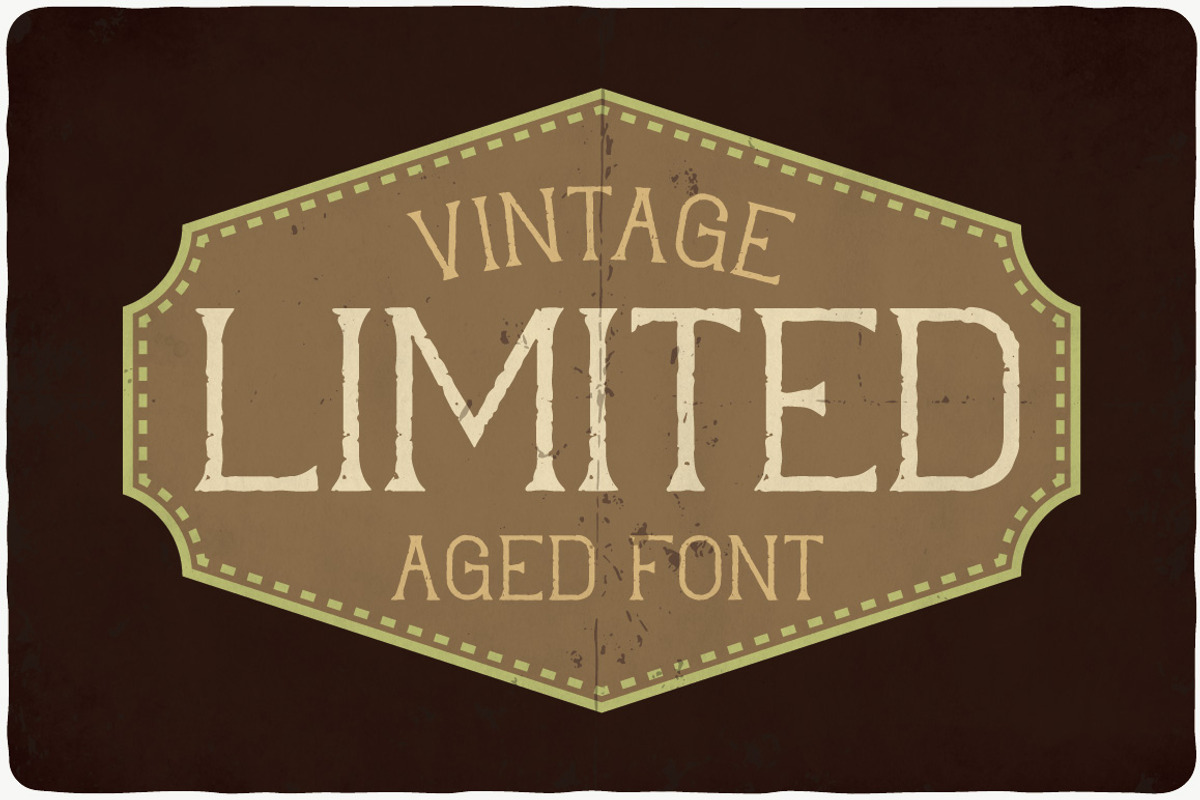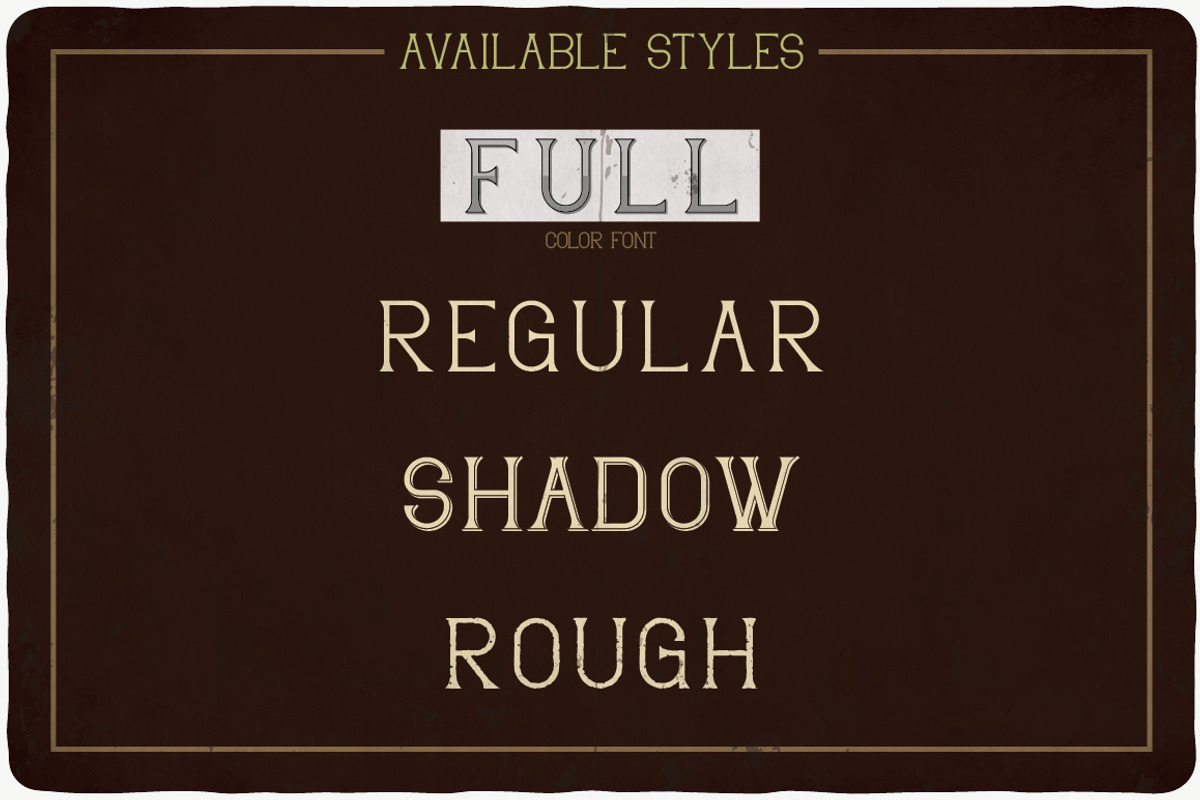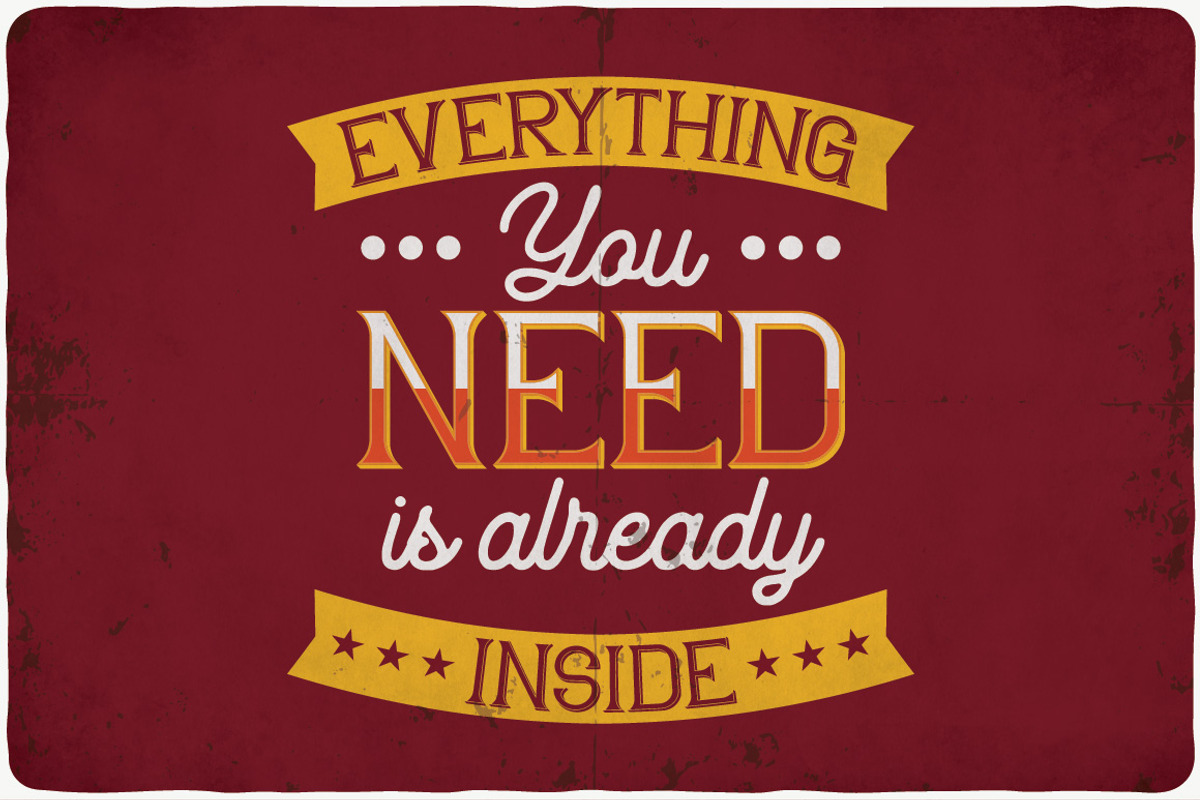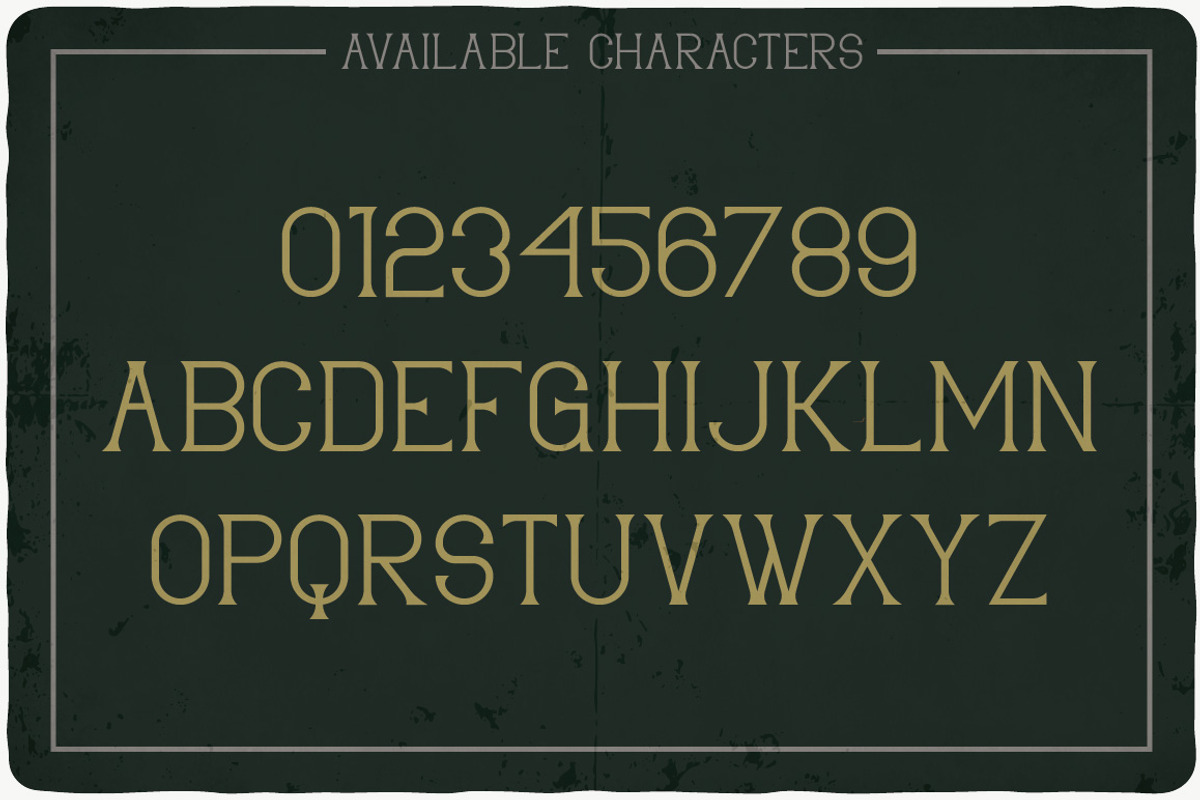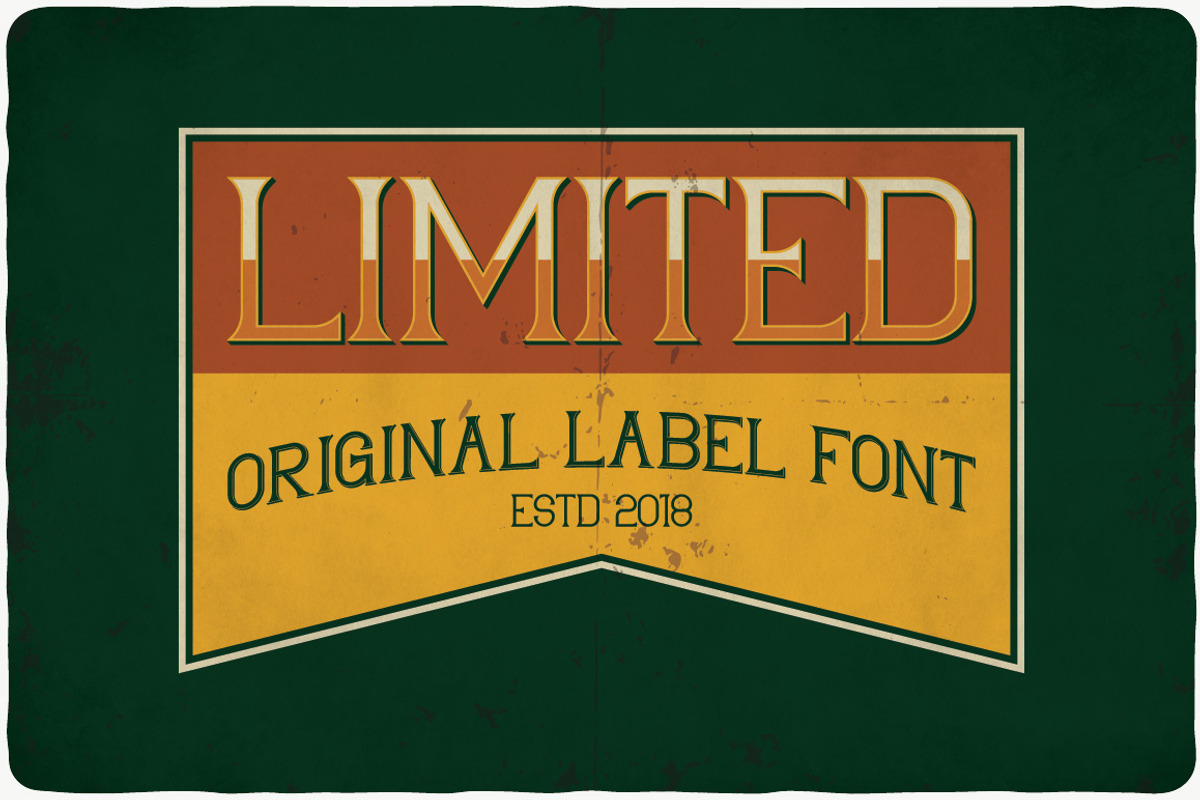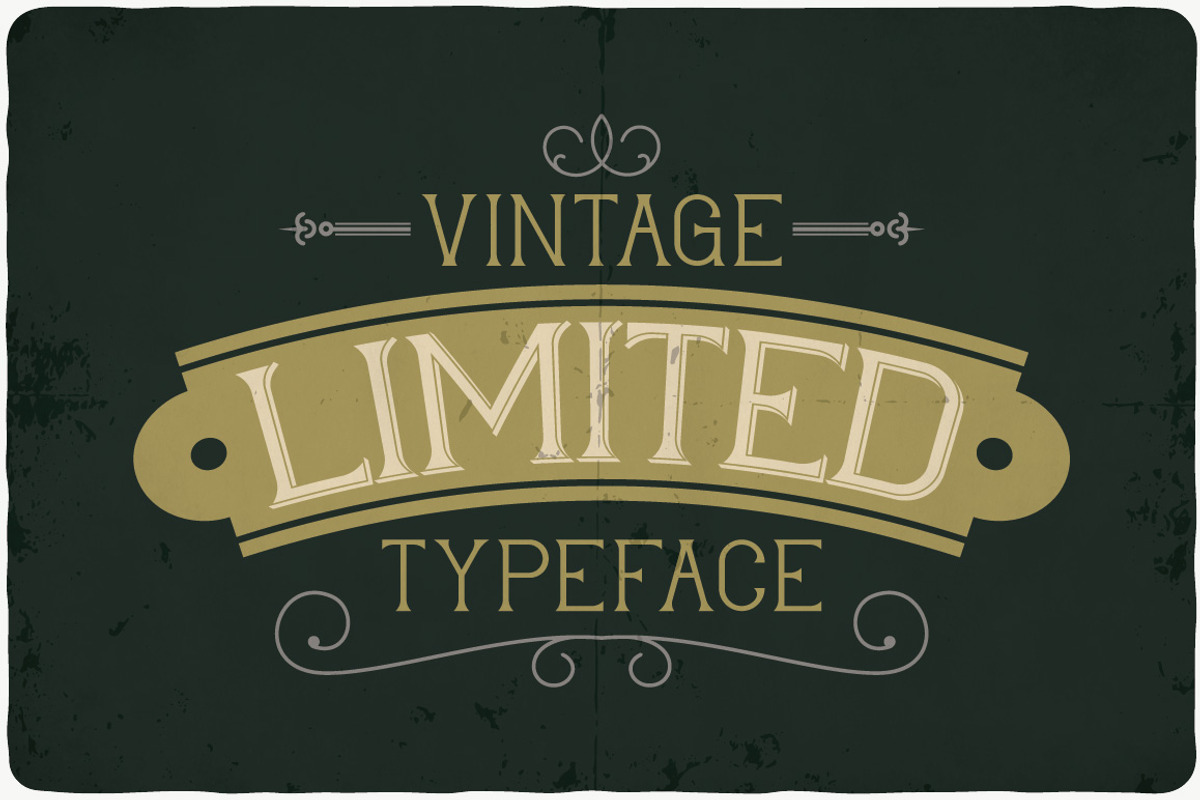
Limited typeface
Introducing a vintage look label typeface named "Limited". This typeface includes four styles, for sample look at 5th preview. Typeface will good viewed on any yours design.
- This typeface includes four styles, for sample look at 5th preview.
Limited typeface by VozzyStock fits naturally into Branding, posters, packaging, typography.